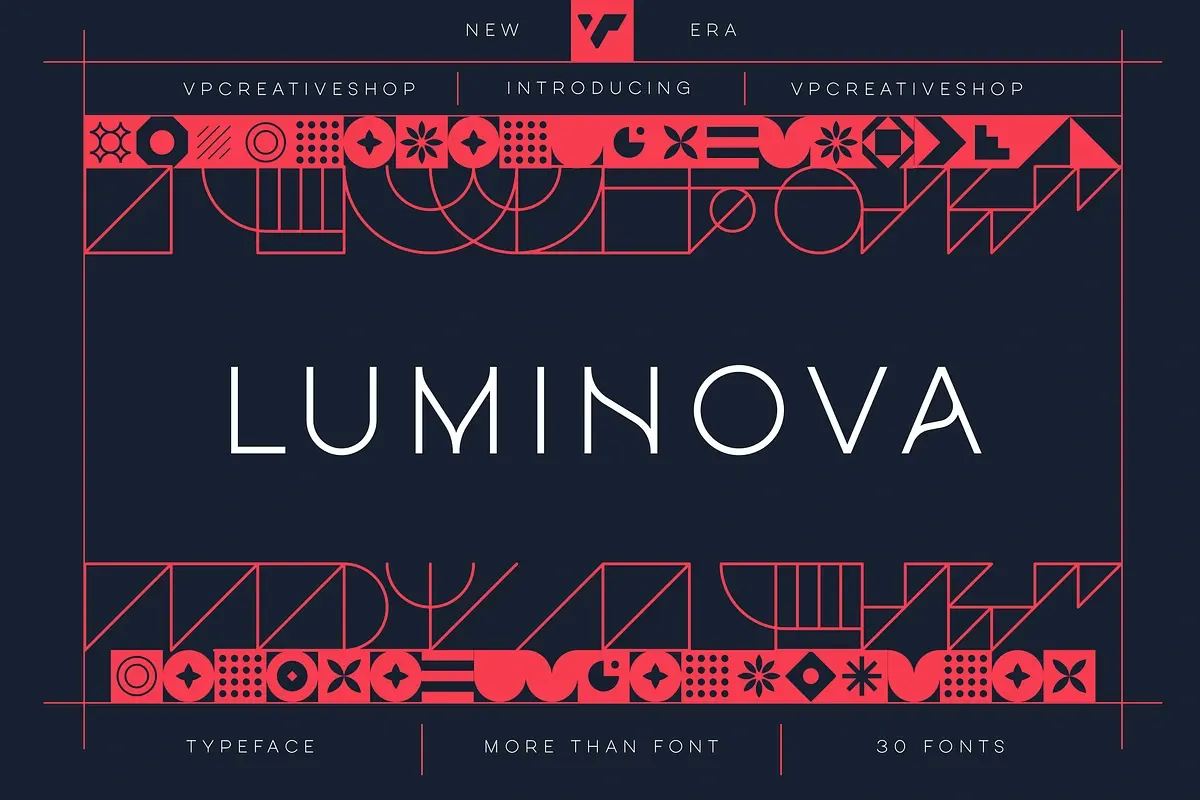
Luminova Sans Serif - 30 Fonts Free Download
Luminova Sans Serif - 30 Fonts Free Download is an extensive and versatile font family that includes 30 different fonts, offering a wide range of weights and styles. This collection is perfect for creating clean, modern designs for branding, editorial layouts, websites, logos, advertising, and more. With its minimalist and highly legible design, Luminova is ideal for both digital and print projects.
Whether you're working on a sleek tech brand, building a professional website, or designing impactful marketing materials, Luminova Sans Serif - 30 Fonts Free Download provides a wide variety of options to suit any design need. Its consistent, contemporary style ensures your typography stands out with clarity and precision.